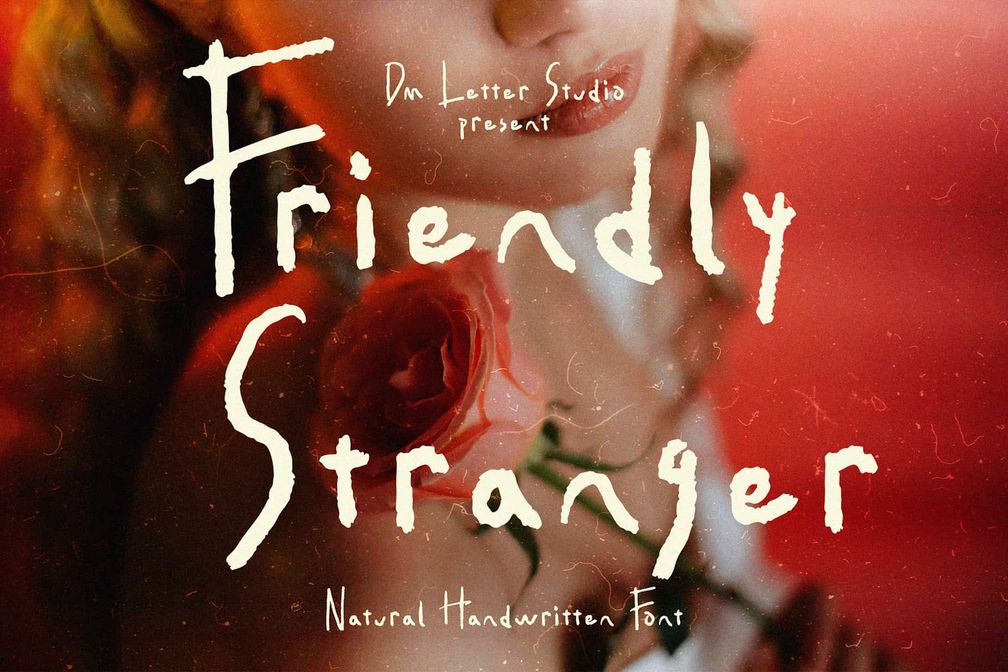
Friendly Stranger
Friendly Stranger – Natural Handwritten Font with Cozy, Casual Charm
Friendly Stranger is a warm and approachable handwritten font, perfect for adding a natural, human touch to your creative projects. Its smooth strokes and informal flow mimic real handwriting, making it ideal for branding, journaling, packaging, or heartfelt designs. Whether you’re designing social media graphics or personal stationery, this font delivers an authentic, friendly vibe.
• Organic Handwritten Style: Free-flowing letterforms that feel genuine and relaxed.
• Versatile & Personal: Perfect for quotes, logos, scrapbooks, wedding stationery, and content creation.
• Multilingual Support: Includes accented characters for international design use.